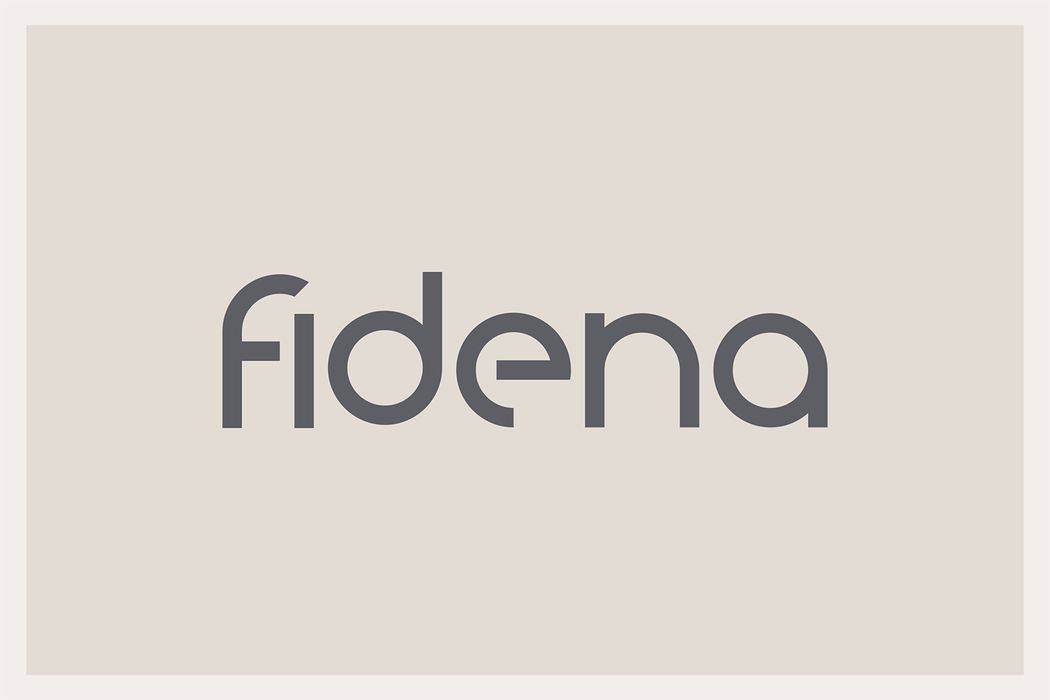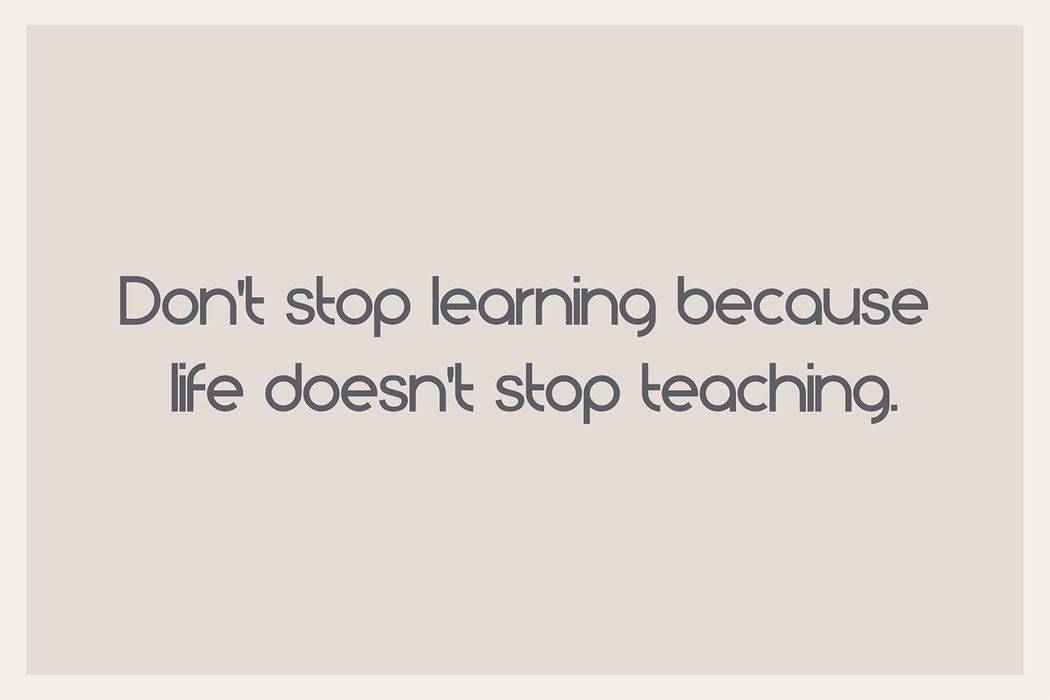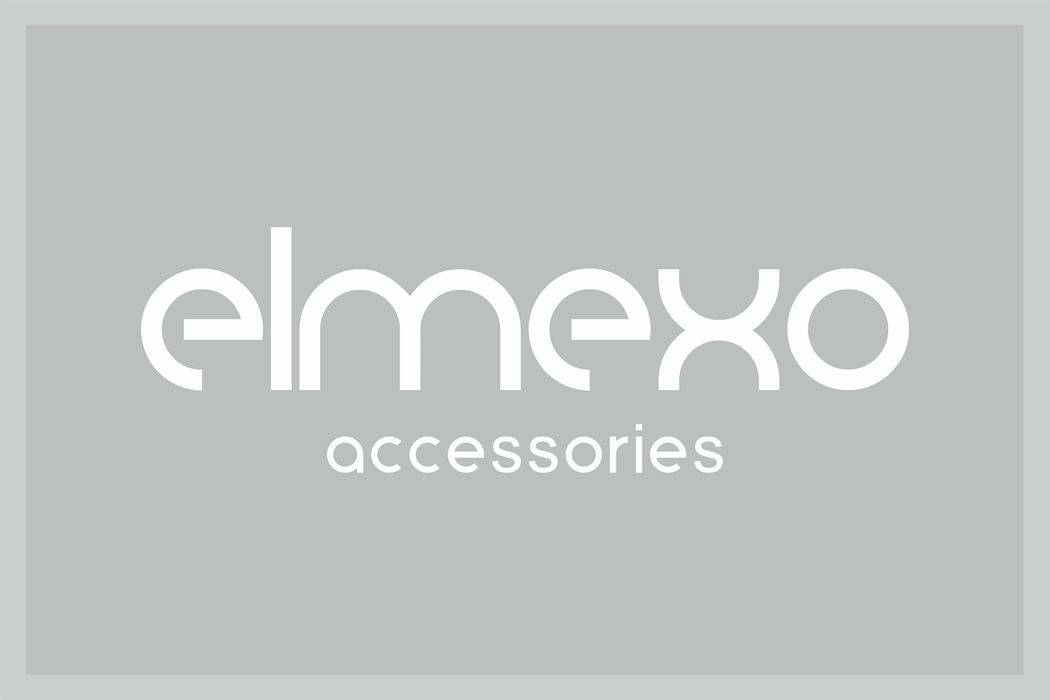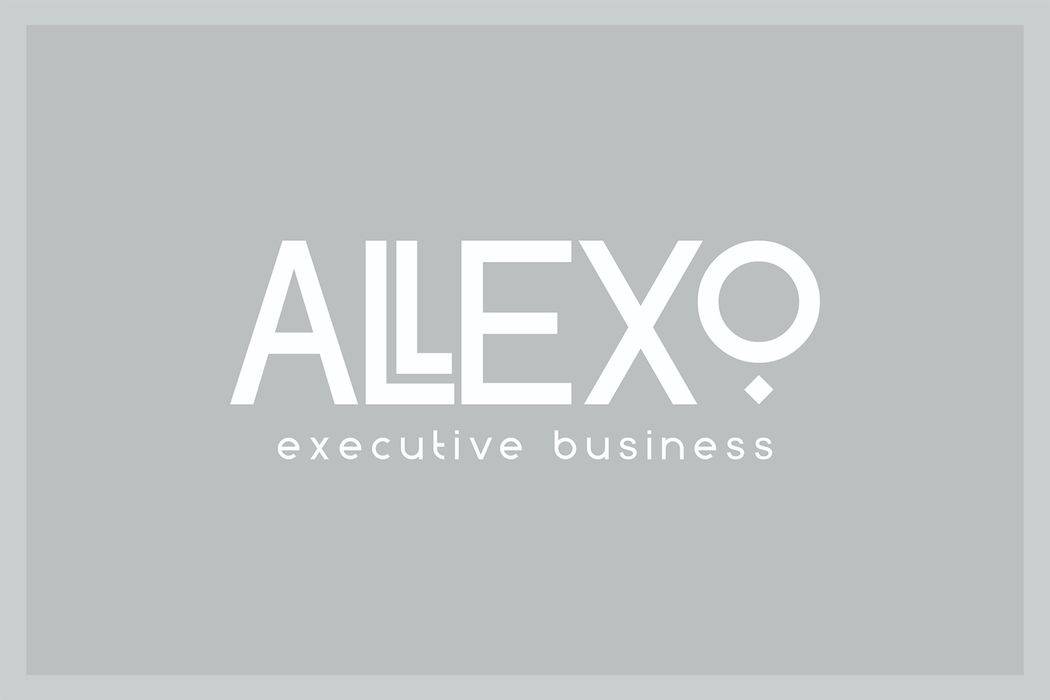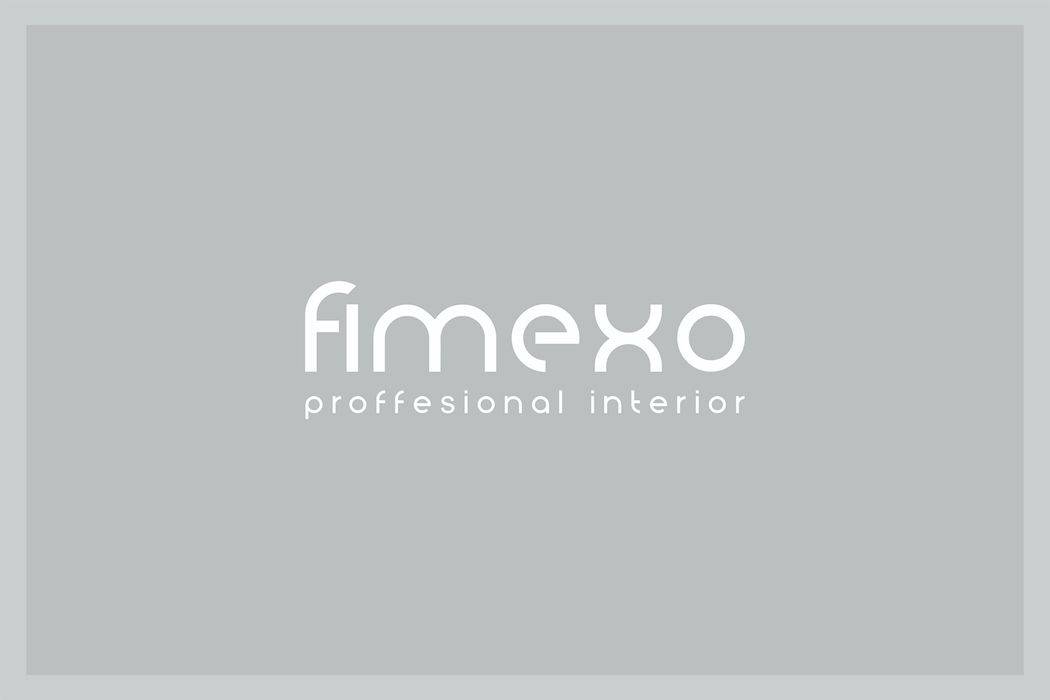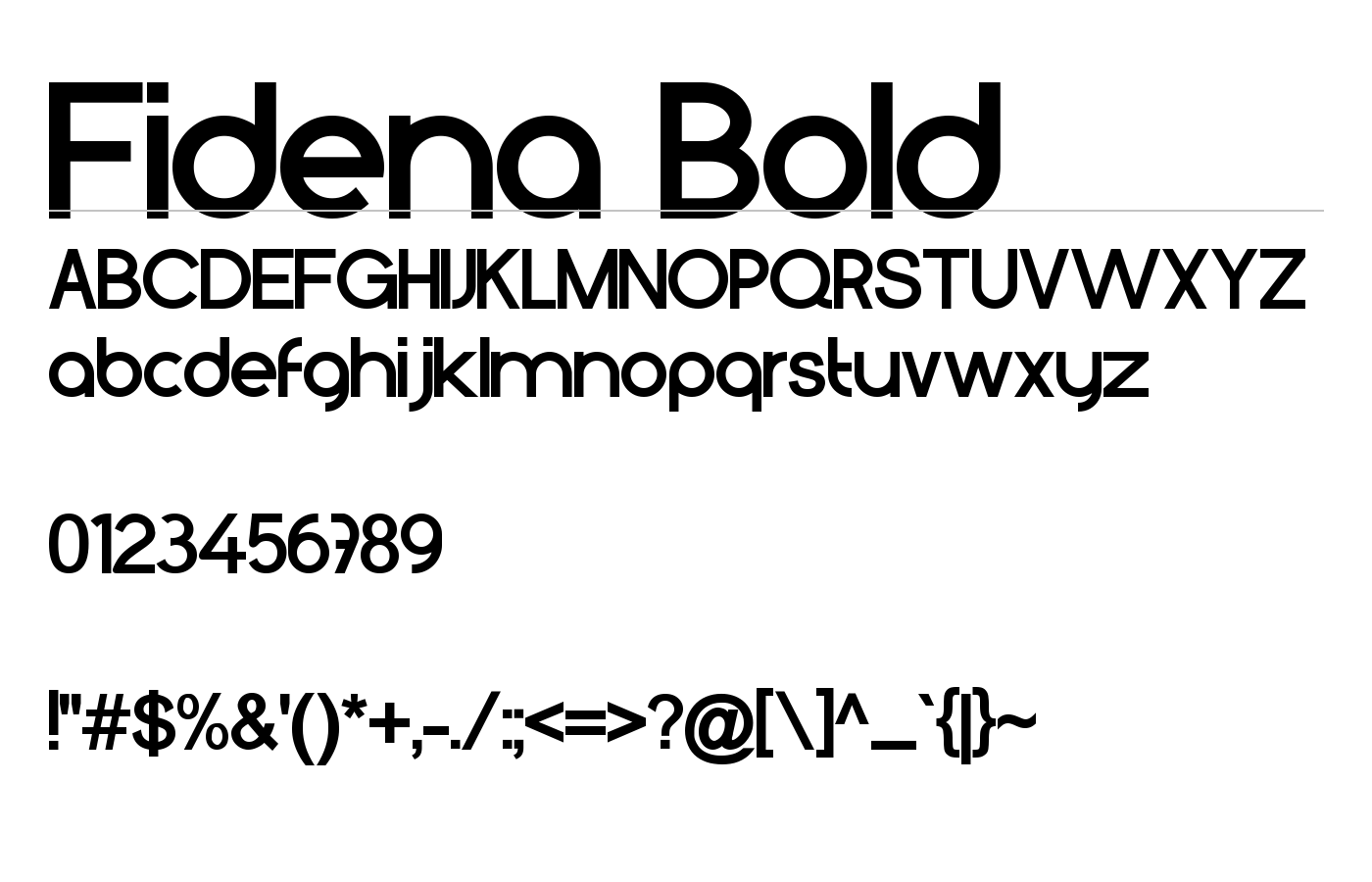
Fidena Bold is a clean, modern sans serif with a bold weight and geometric letterforms that create a strong visual impact. Its high x-height and balanced proportions ensure excellent readability, making it ideal for headlines, branding, and contemporary editorial use. This font’s sleek, straightforward style conveys confidence and professionalism while remaining approachable and versatile.
Fidena Font
About Fidena Font
| Font family | Fidena Font |
| Designer | Pandanwangi2020 |